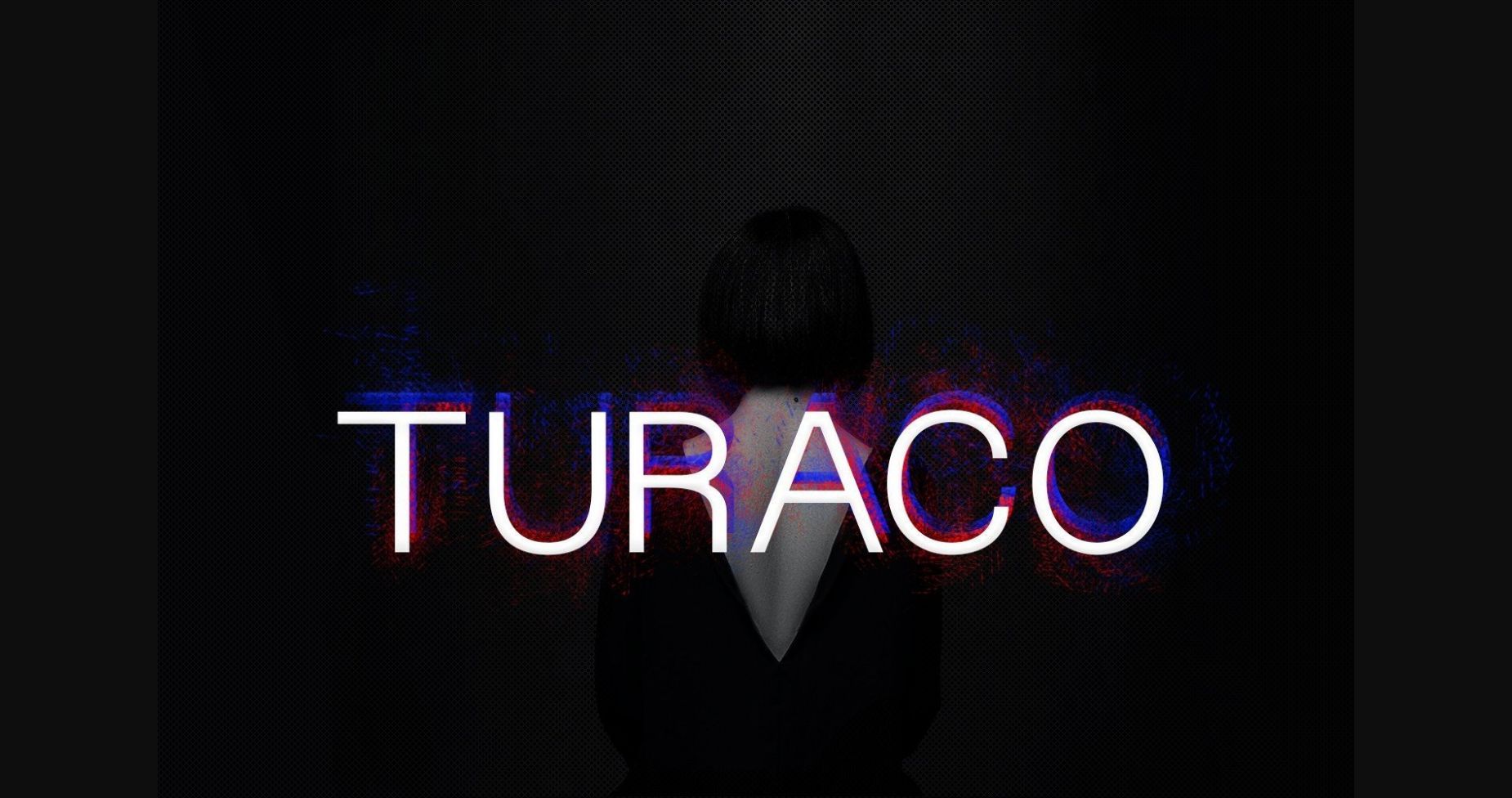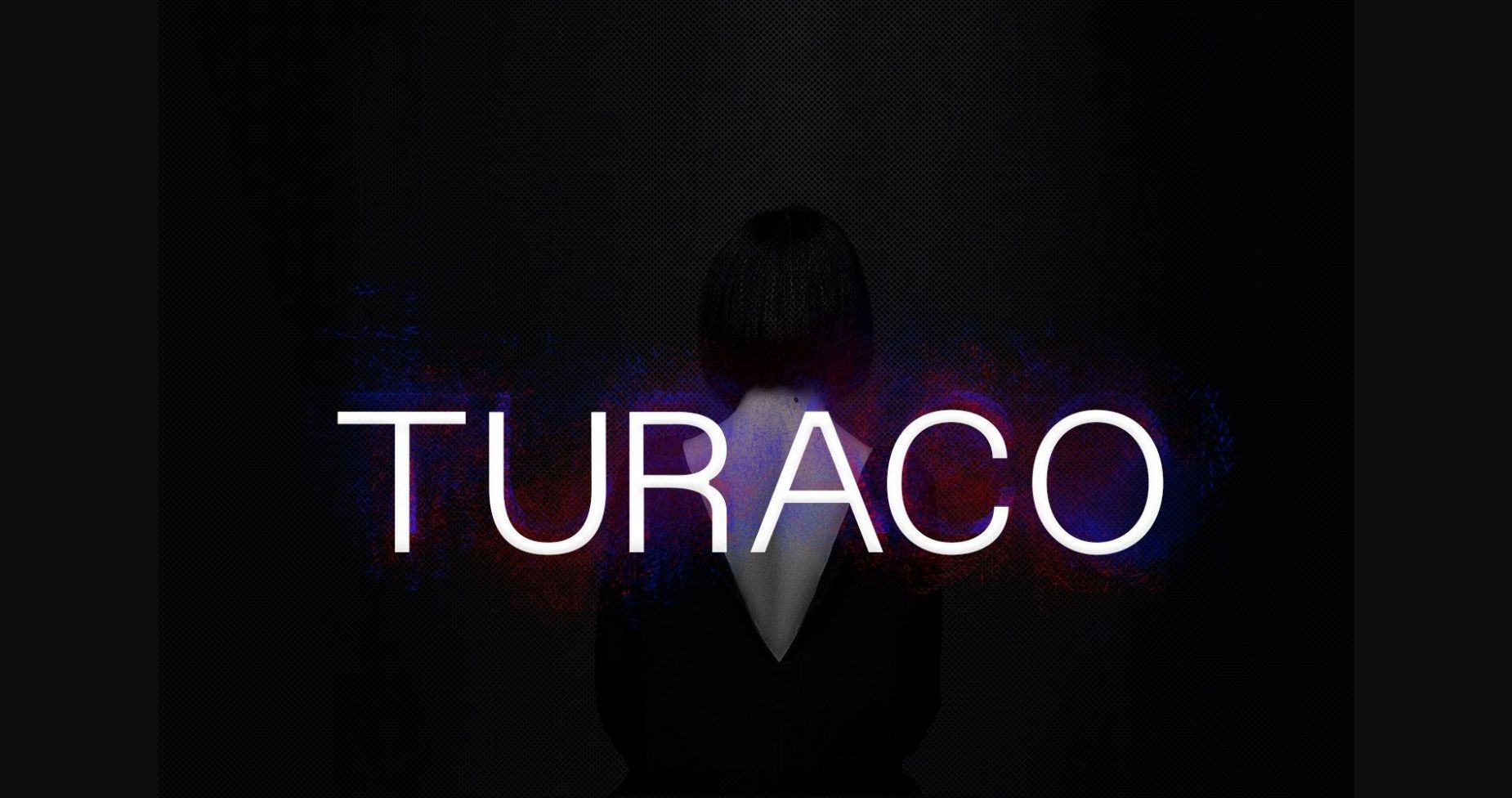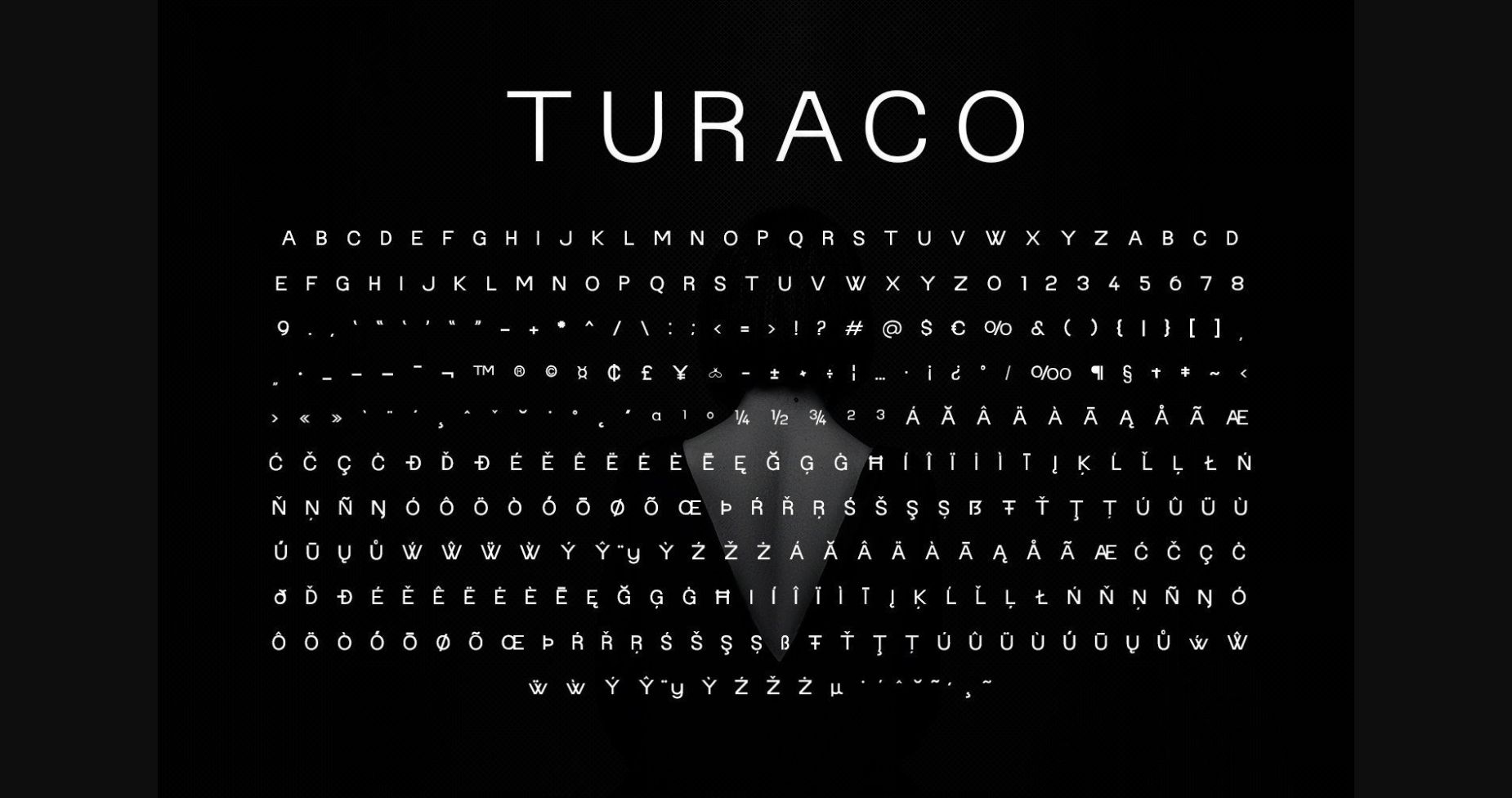
Turaco Font
About Turaco Font
Turaco is a stunning modern typeface that boasts clean lines, and sharp edges. It is an extremely versatile font, perfect for logos, weddings, invitations, quotes, advertisements, print, magazines, and more!
What really makes Turaco a special font is the small caps (available via the lowercase letters). Each small cap is the same thickness as the uppercase letters, making it super easy to create gorgeous logos.
Turaco is perfect for designs that need to have a traditional, antique feel while still being sleek and minimalist. It will look fantastic with any logo, product name, poster, or design.
When describing it, words like elegant, minimal, classy, and modern come to mind. It’s great for fashion, clothing styles, signatures, album covers, magazines, social media, and advertisements, among other things. This font carries a powerful, unique, and social character line with a premium finish, giving a new impression. An elegant, authentic, and thin-lettered serif font.